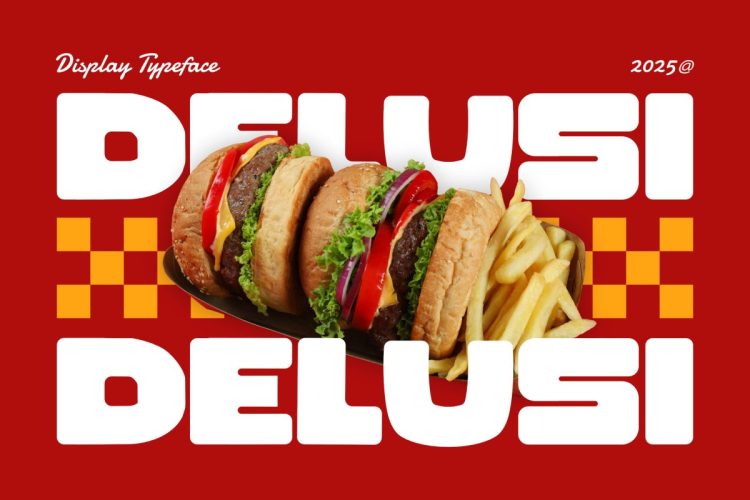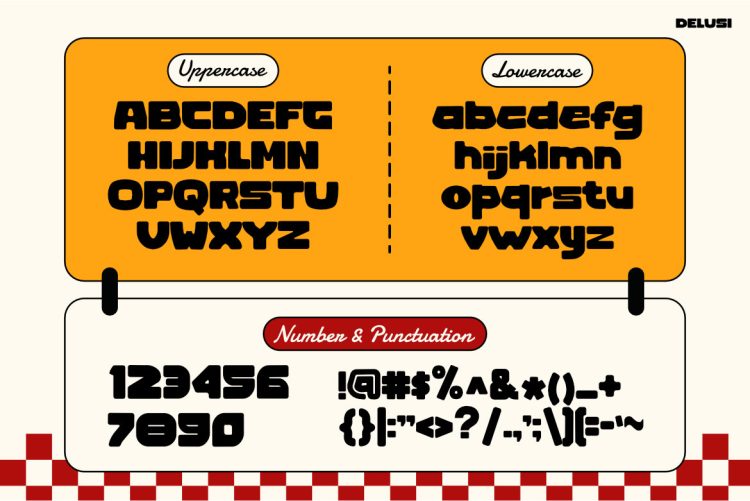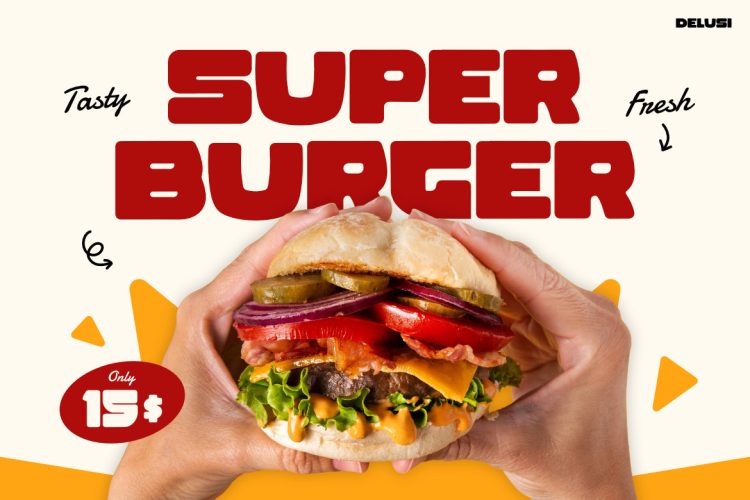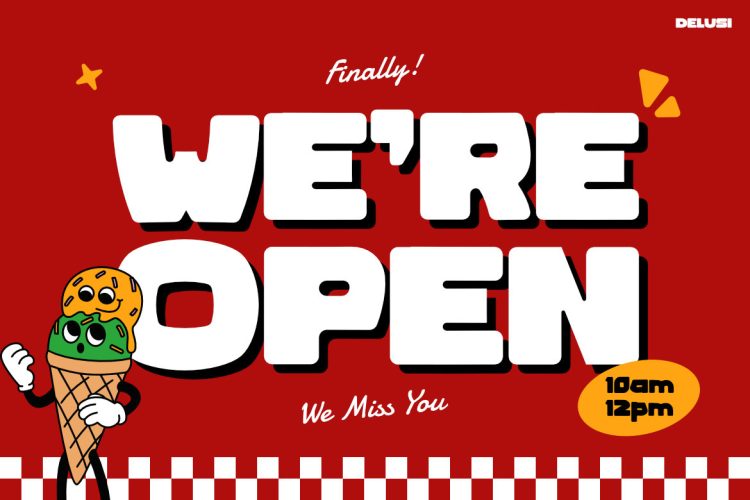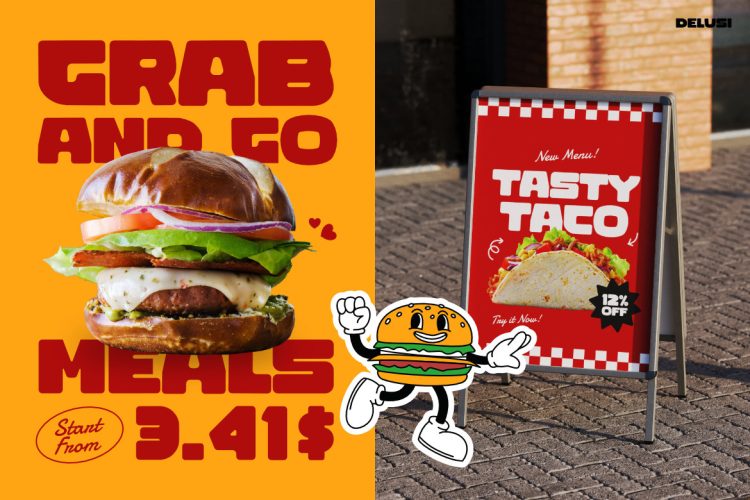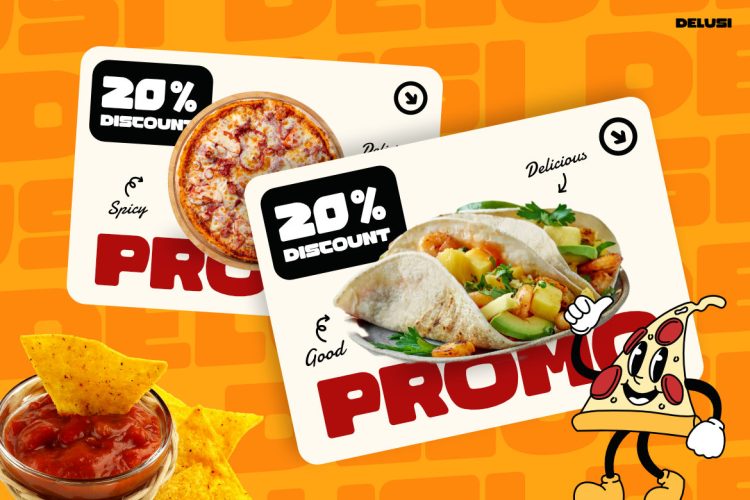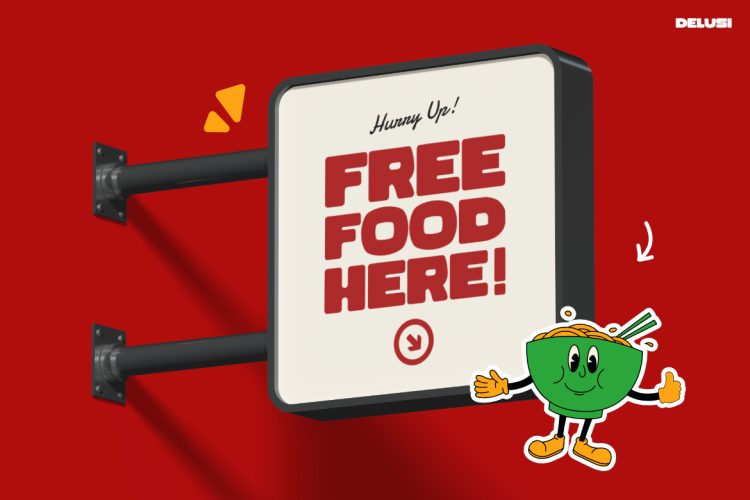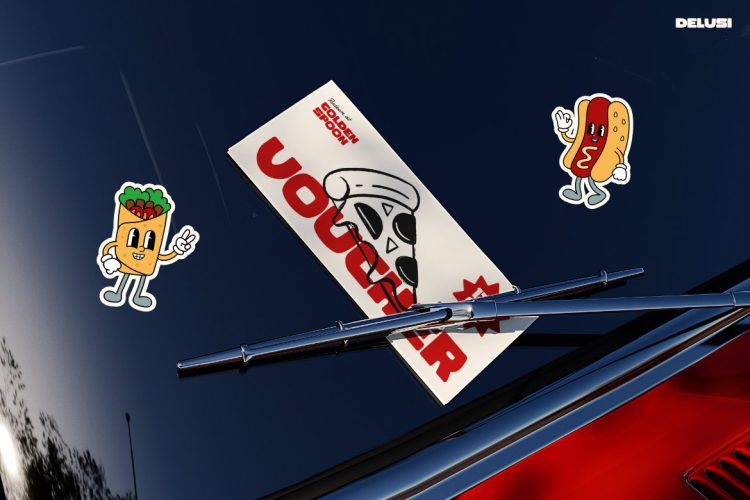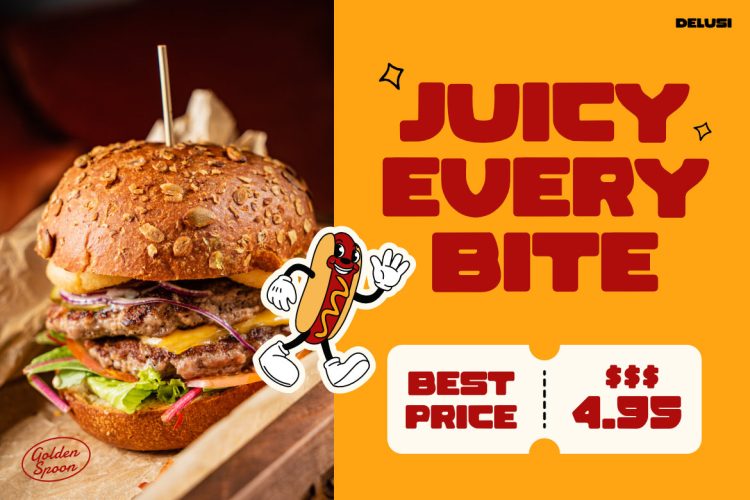
Instagram Font DELUSI โ Loud Letters for Tasty Brands
Instagram Font DELUSI delivers bold energy for food-driven designs. From the first glance, it grabs attention. Moreover, it turns simple words into strong visual hooks. Inspired by street food culture, this font feels warm, playful, and confident. As a result, every headline looks appetizing and fun.
In addition, the thick letterforms create instant impact. The rounded edges add friendliness and charm. At the same time, spacing stays clean and readable. Even at smaller sizes, the text remains clear. Meanwhile, large headlines feel powerful and expressive. Because of this balance, DELUSI performs well across menus, posters, and social media graphics.
Furthermore, DELUSI supports fast communication. Messages feel direct and bold. Therefore, promotions become easier to notice. Discounts appear stronger and more convincing. In busy Instagram feeds, the font helps content stand out instantly. Consequently, brands gain visibility without extra visual noise.
Beyond aesthetics, DELUSI also improves brand recall. Its playful personality makes designs memorable. As a result, customers remember the message longer. Over time, this helps build stronger brand identity. Additionally, the font encourages interaction and engagement. Likes, clicks, and shares feel more natural.
Who Is This Font For
First, DELUSI fits food and beverage brands that want instant attention. Burger shops, cafรฉs, food trucks, and street vendors benefit quickly. Likewise, snack brands and takeaway businesses gain bold presence.
Next, designers enjoy its versatility. Social media creators use it for posts, stories, and reels. Additionally, marketers rely on it for promos and seasonal campaigns. Small business owners also apply it to menus, signage, and packaging. Since the style feels friendly, it builds trust fast.
Moreover, DELUSI works well for digital ads and printed materials. It pairs easily with bright colors and fun illustrations. As a result, it adapts to modern branding needs with ease.